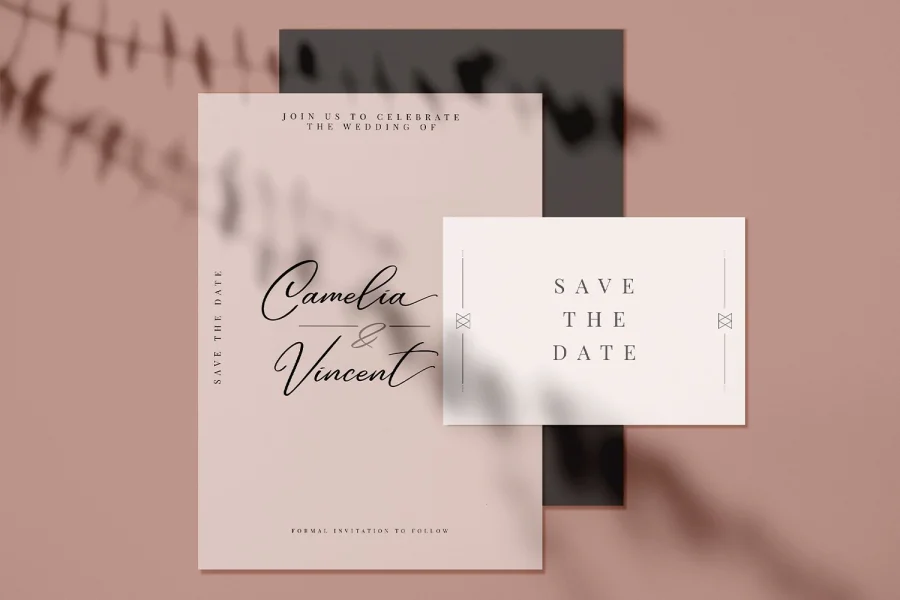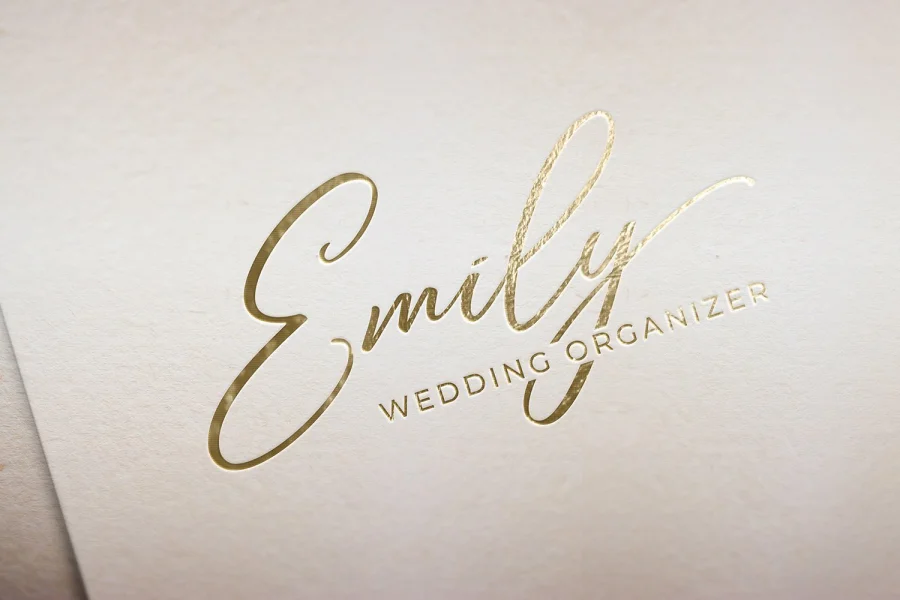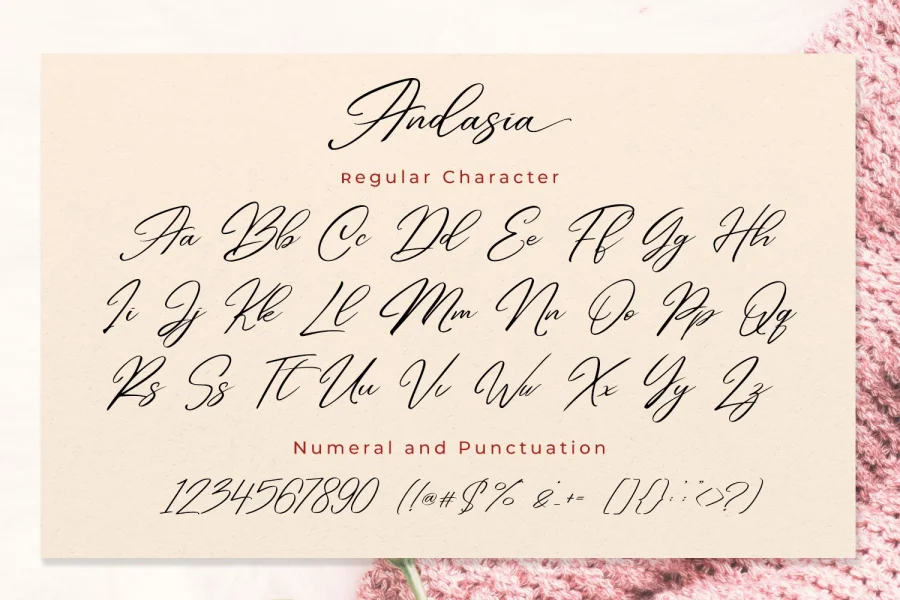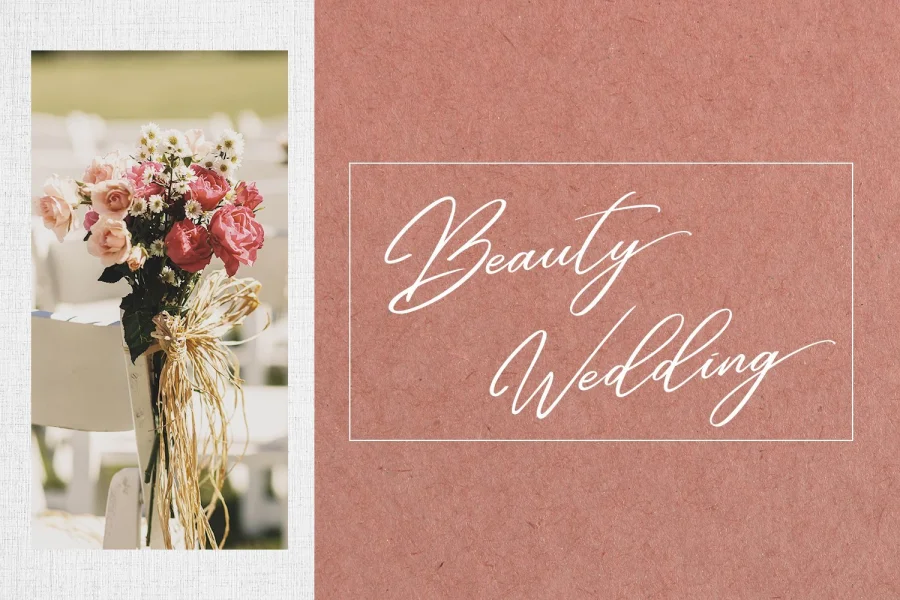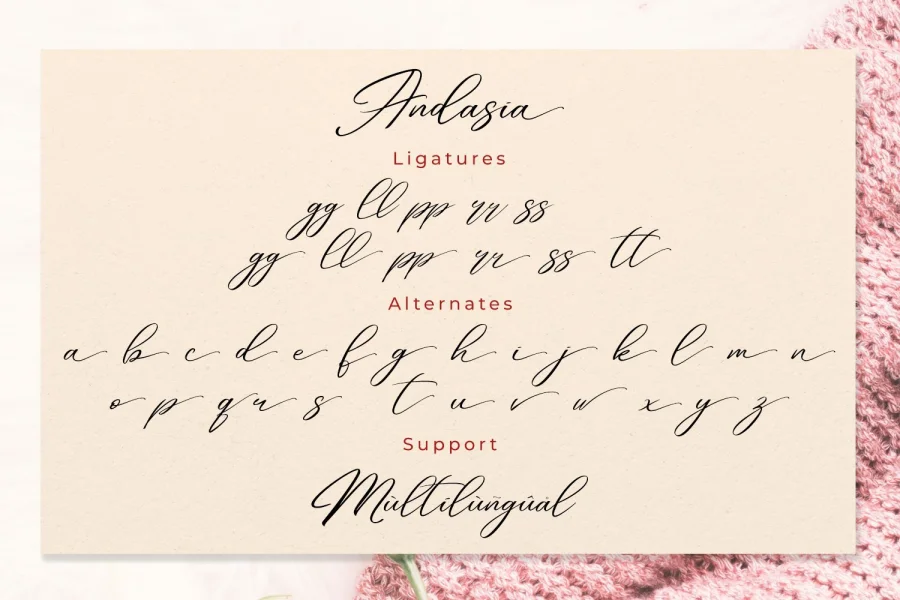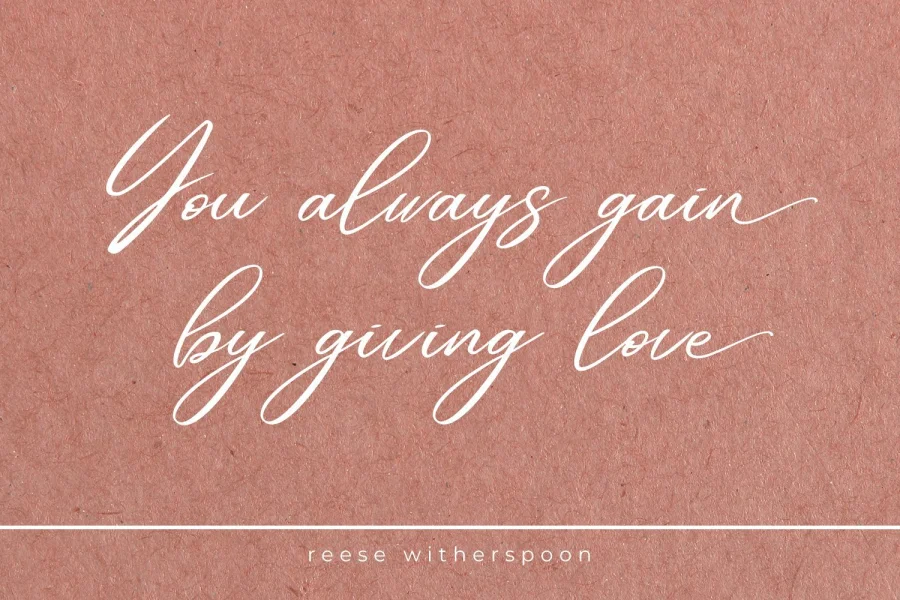
Andasia Script beautiful calligraphy with natural and handwritten style. It brings a beautiful and modern typeface that best used for weddings, branding, logotype, and quotes.
Features:
- Beautiful Ligatures
- Multilingual Support
- Numerals and Punctuation
- Swash (a-z)